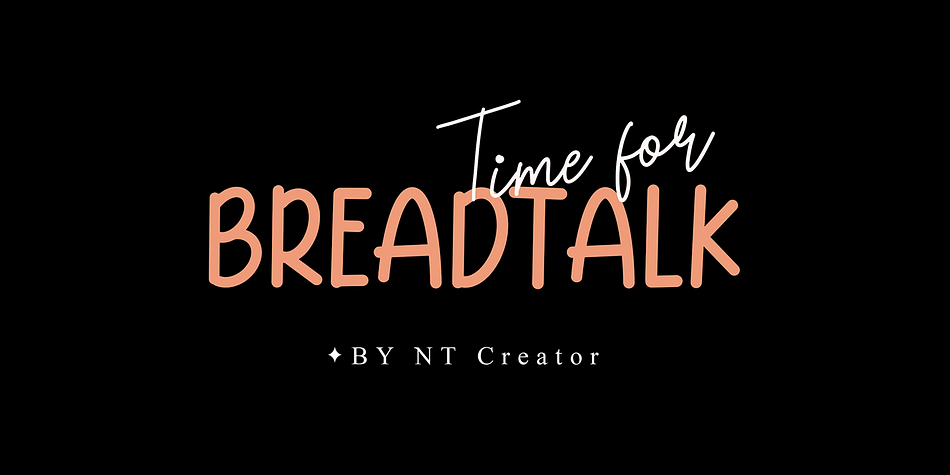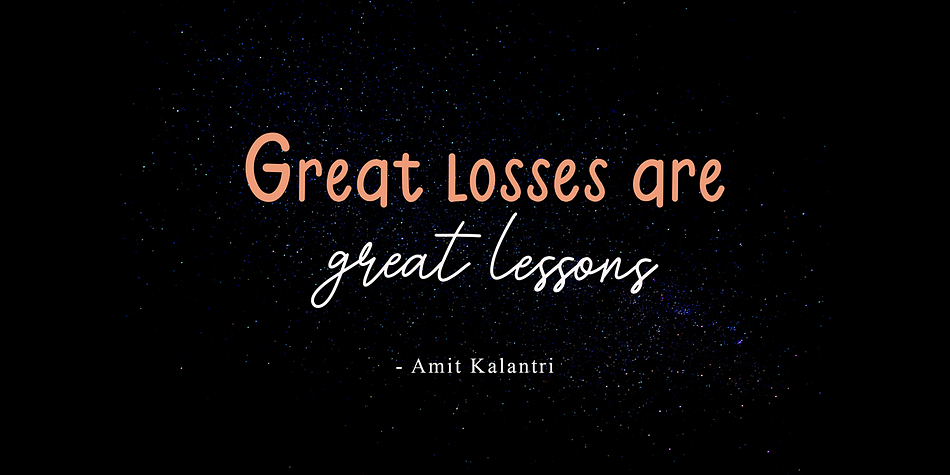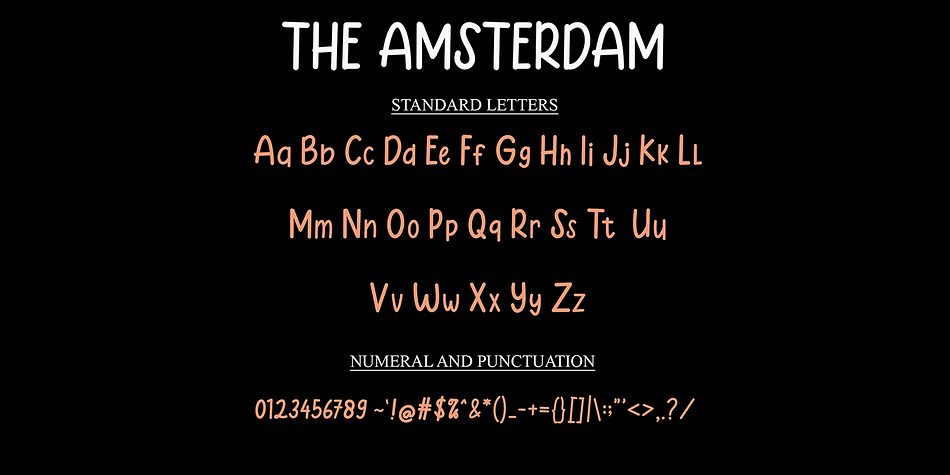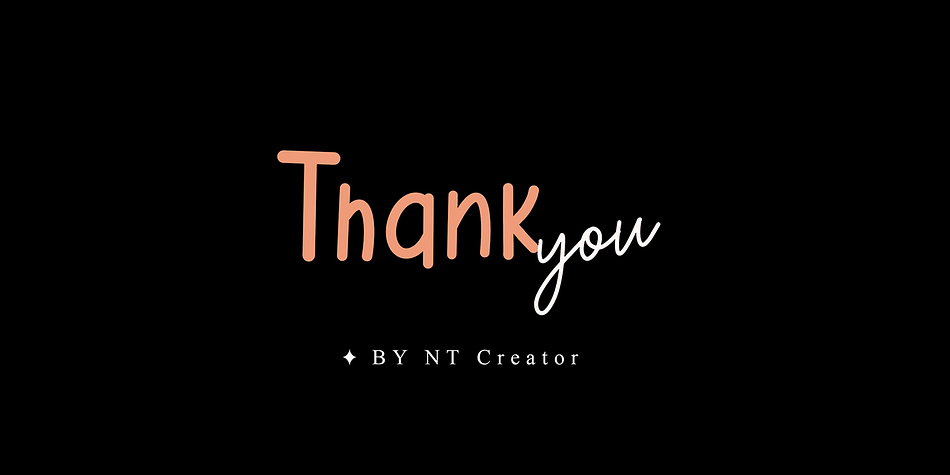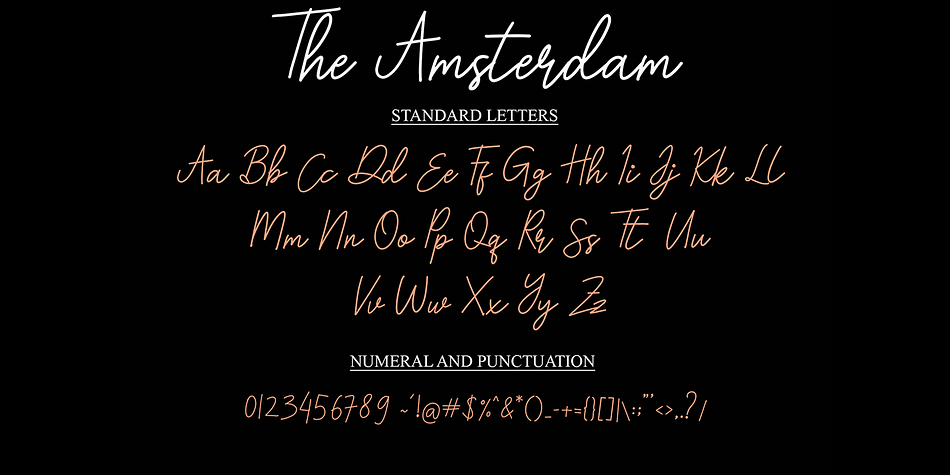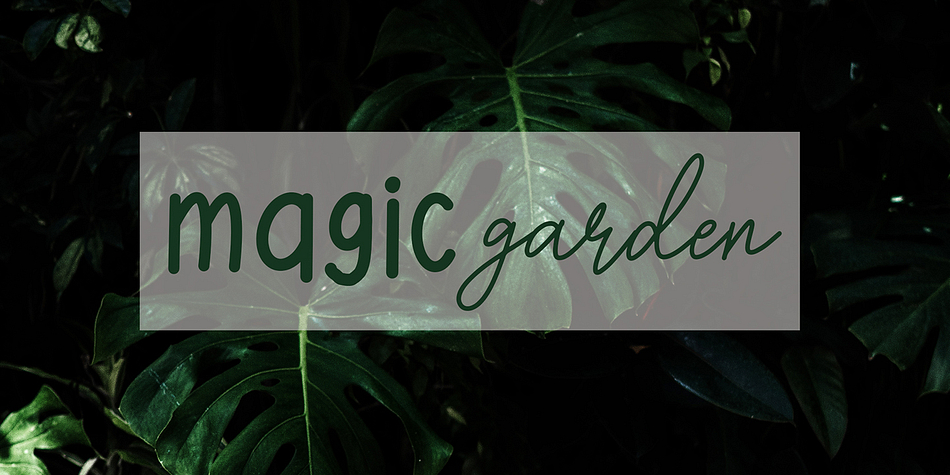
The Amsterdam
Designed by Najmus Tsaqib, The Amsterdam is a multiple classification font family. This typeface has two styles and was published by NT Creator.
The Amsterdam is an elegant and dainty two styled script font. This original look will appeal to a wide range of crafty ideas, from letterheads and titles to stationery. Add it confidently to your favorite creations and let yourself be amazed by the outcome generated.